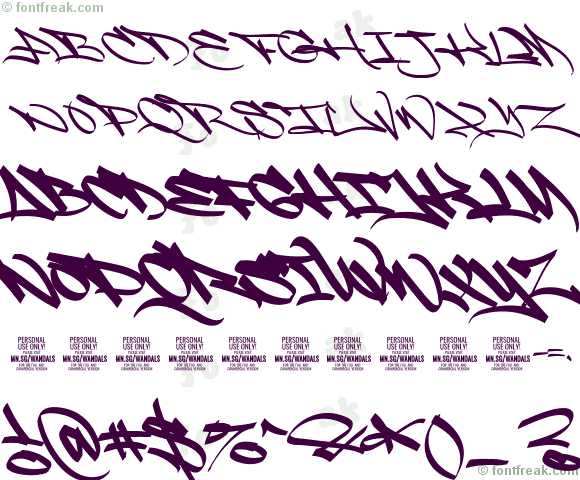
Slim Wandals PERSONAL USE
Slim Wandals Element PERSONAL
Slim Wandals Alt PERSONAL USE
Slim Wandals PERSONAL USE font by Mans Greback is a striking display font that embodies an edgy, contemporary style. This font features a playful yet sophisticated design, characterized by its slim, elongated strokes and an artistic flair that makes it perfect for various creative applications. The overall look is dynamic, with a graffiti-inspired aesthetic that combines elegance and urban appeal. The contrast in stroke weight adds a sense of movement, while the unique decorative elements give it a distinct personality.
This font is ideal for a range of creative projects, including wedding invitations that call for a modern twist, movie posters aimed at a youthful audience, restaurant menus that wish to convey a trendy vibe, and social media graphics that need to stand out in a crowded space. Its versatility makes it suitable for both casual and formal contexts, appealing to those seeking a fresh approach to typography.
The target audience for Slim Wandals includes graphic designers looking to make a bold statement, small business owners who want to attract attention, and content creators searching for a unique font to enhance their visual content. By using this font, creators can convey a sense of individuality and creativity that resonates with their intended audience.